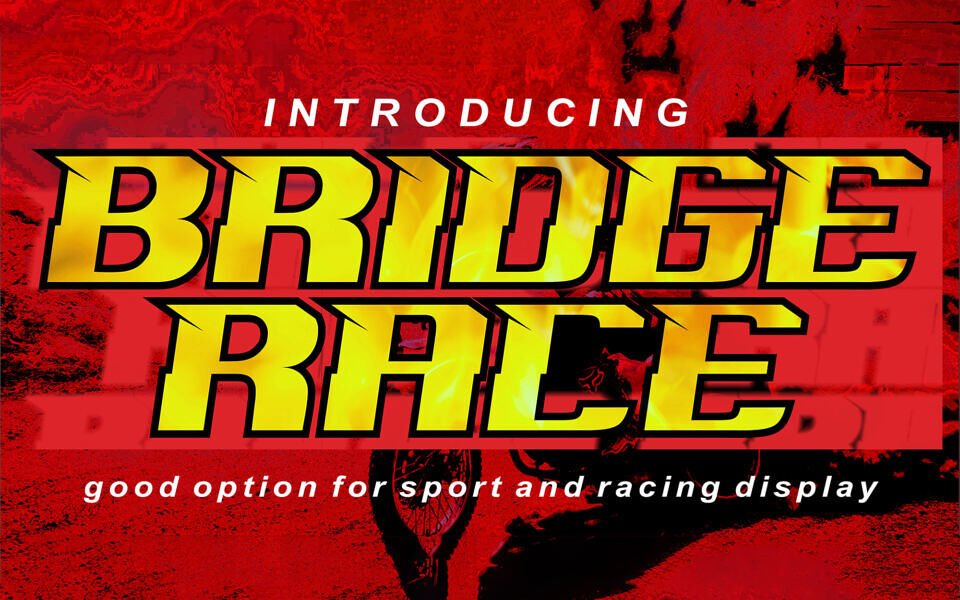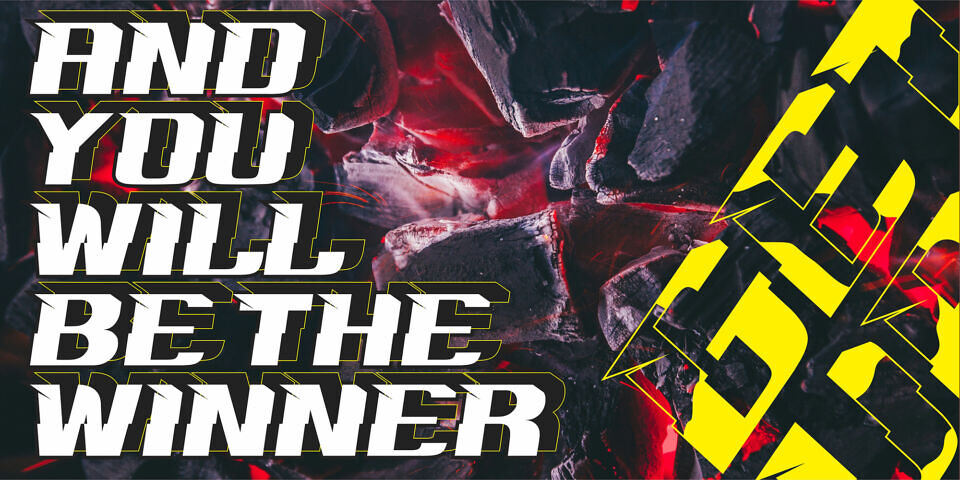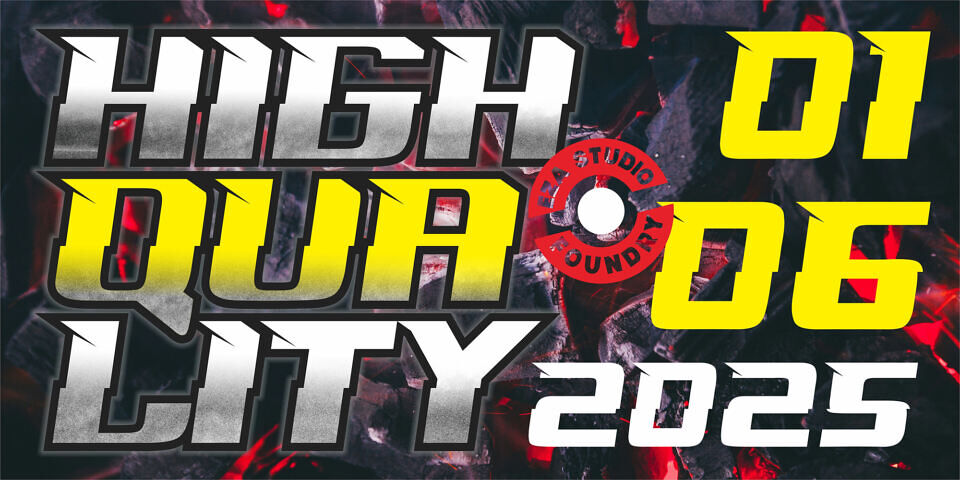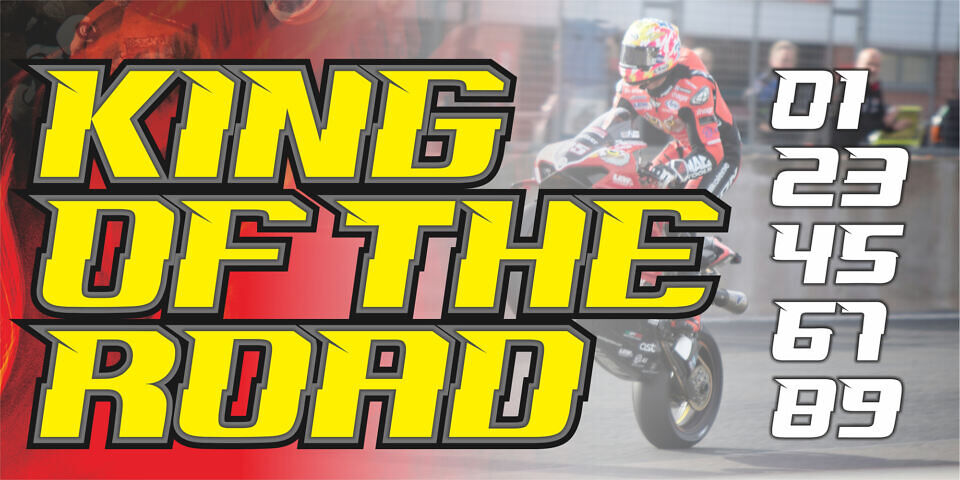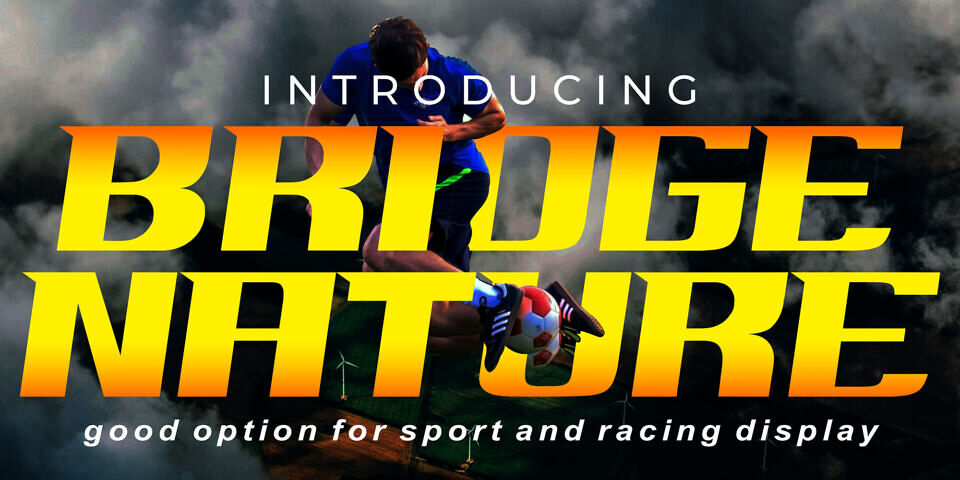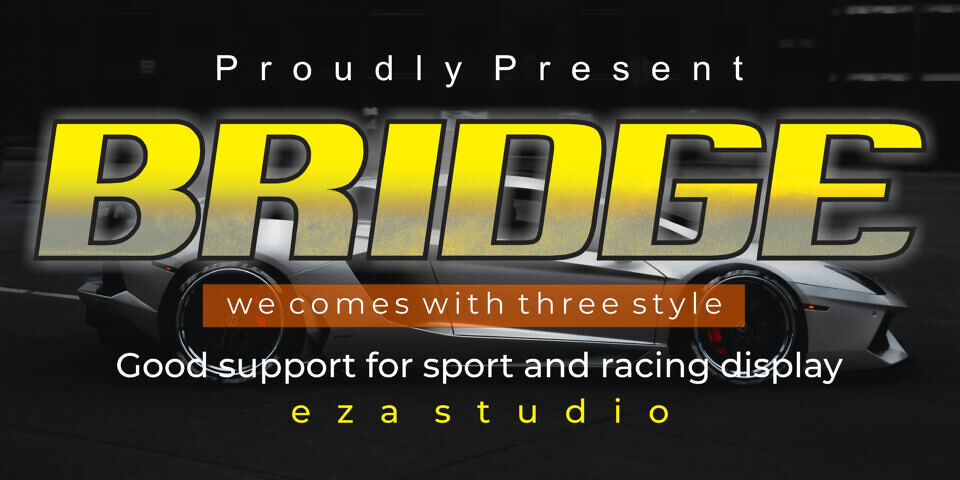
Bridger Nature Font
Introducing Bridger Nature Font, a striking typeface designed to command attention. Featuring three bold variations, Bridger Nature stands out with its sharp corners, distinctive spurs, and aggressive slants—elements that bring a sense of motion and energy to your designs.
Its bold yet readable structure makes it ideal for news headlines, especially in sports, automotive graphics, posters, logos, and monograms. Bridger Nature combines visual impact with clarity, offering a modern edge while maintaining professional readability.